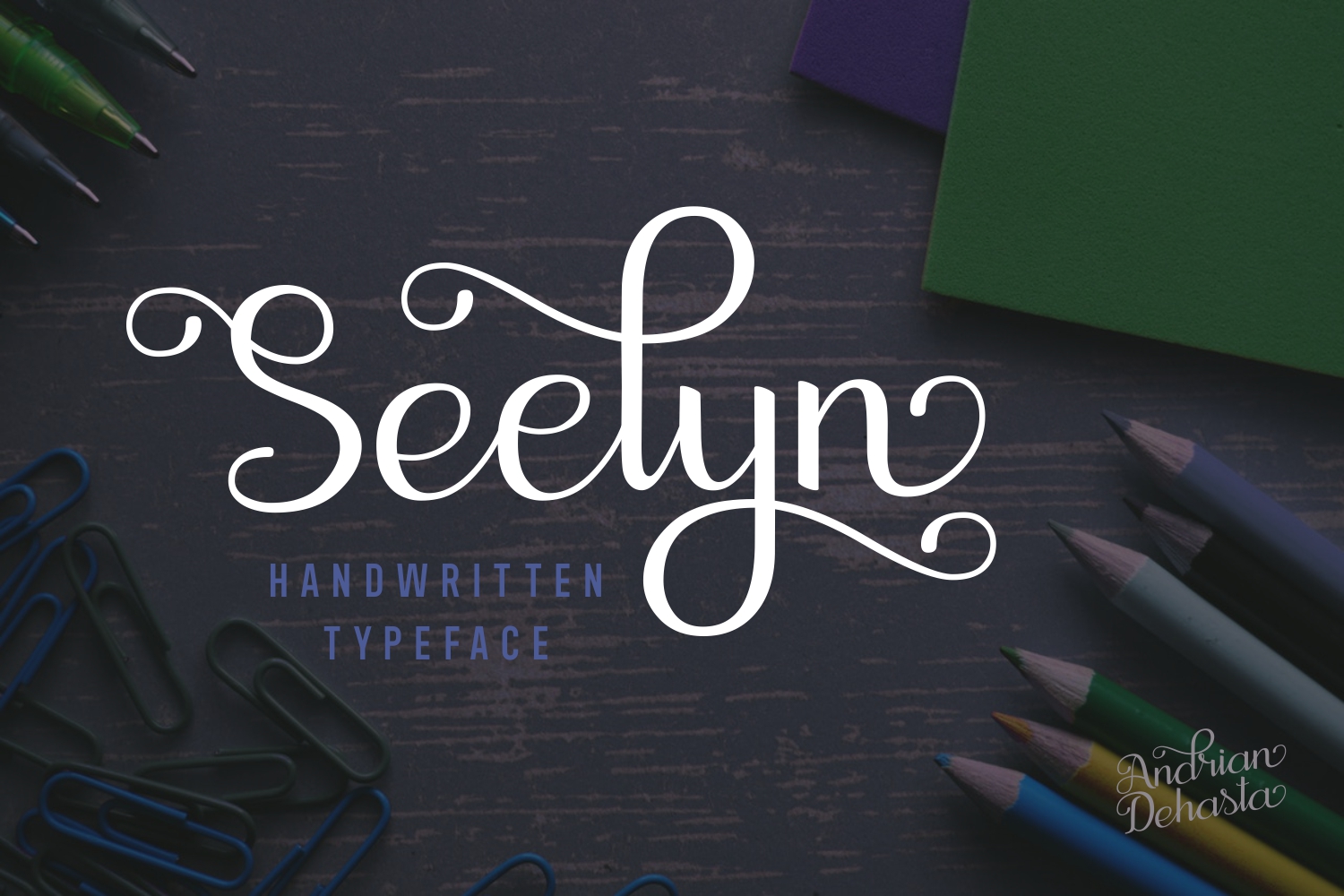
Seelyn Font
About Seelyn Font
Seelyn is a beautiful yet unfussy font, ideal for romantic and headline typographic projects. This font has carefully measured swashes that give the type a concise and clean feel without negating its style.